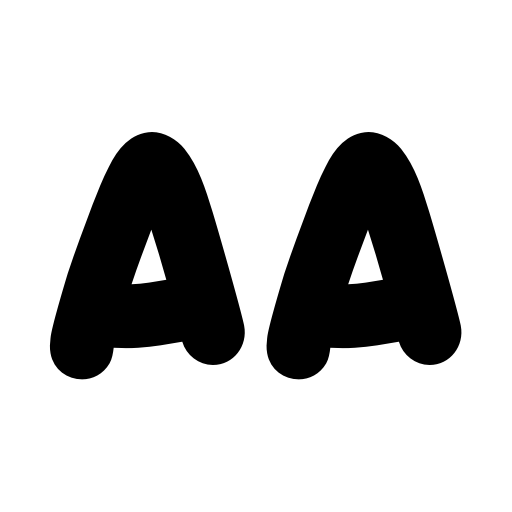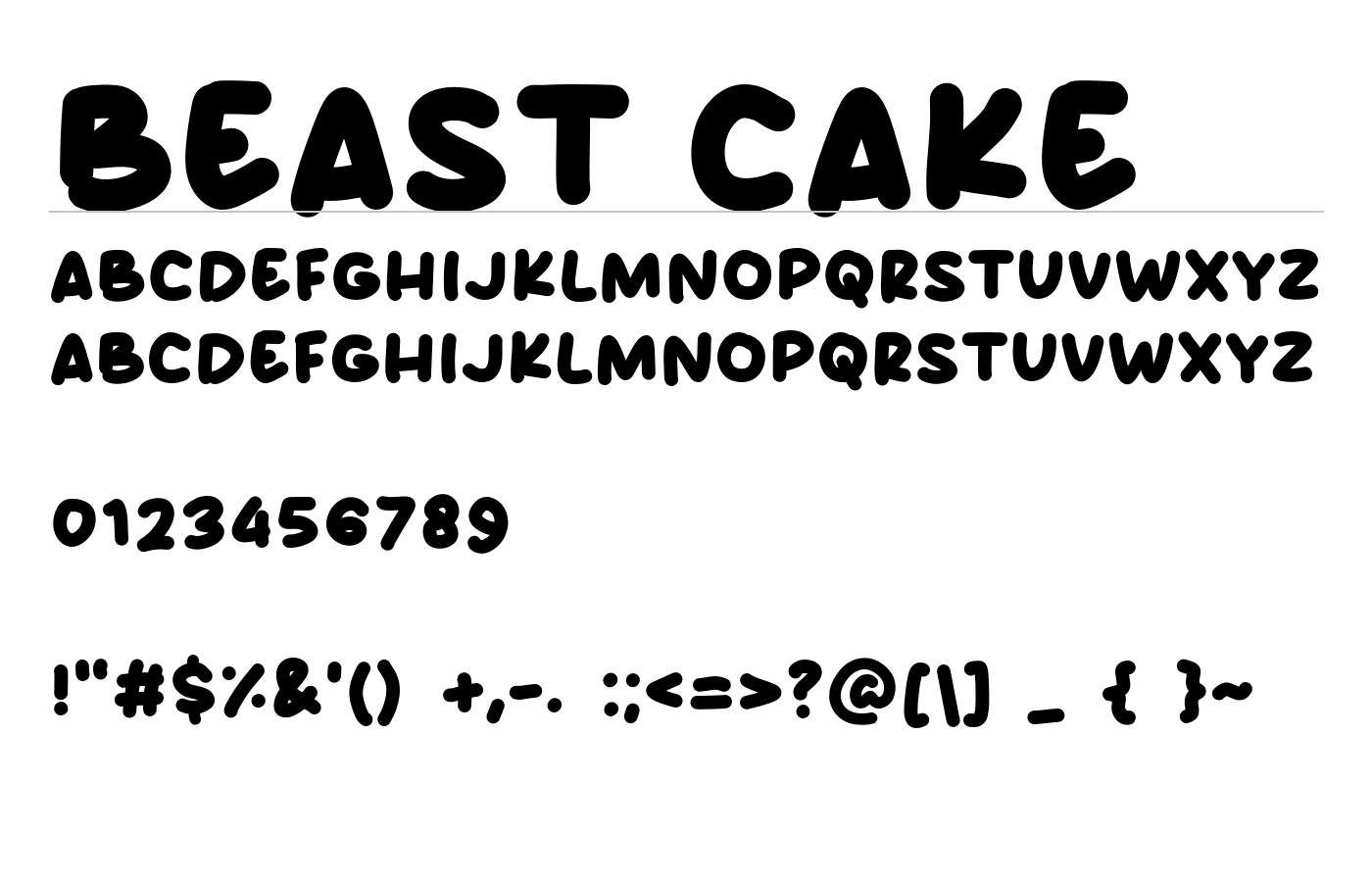
Beast Cake is a bold, playful sans serif font with rounded, chunky letterforms that give it a friendly and approachable feel. Its casual style and consistent stroke weight make it perfect for fun, informal projects like children’s books, party invitations, and lively branding that needs a cheerful and energetic vibe. This font works best in headlines and display use where its quirky personality can really stand out.
Beast Cake Font
About Beast Cake Font